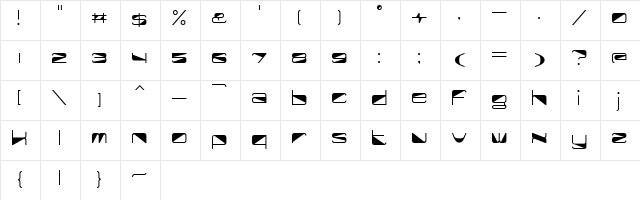
Half Cut Regular
| Foundry | Arran Corbett |
| Designer | Arran corbett |
Design Context for Half Cut Typeface
Half Cut is a composed and adaptable typeface that performs quietly and consistently across a wide range of design contexts.